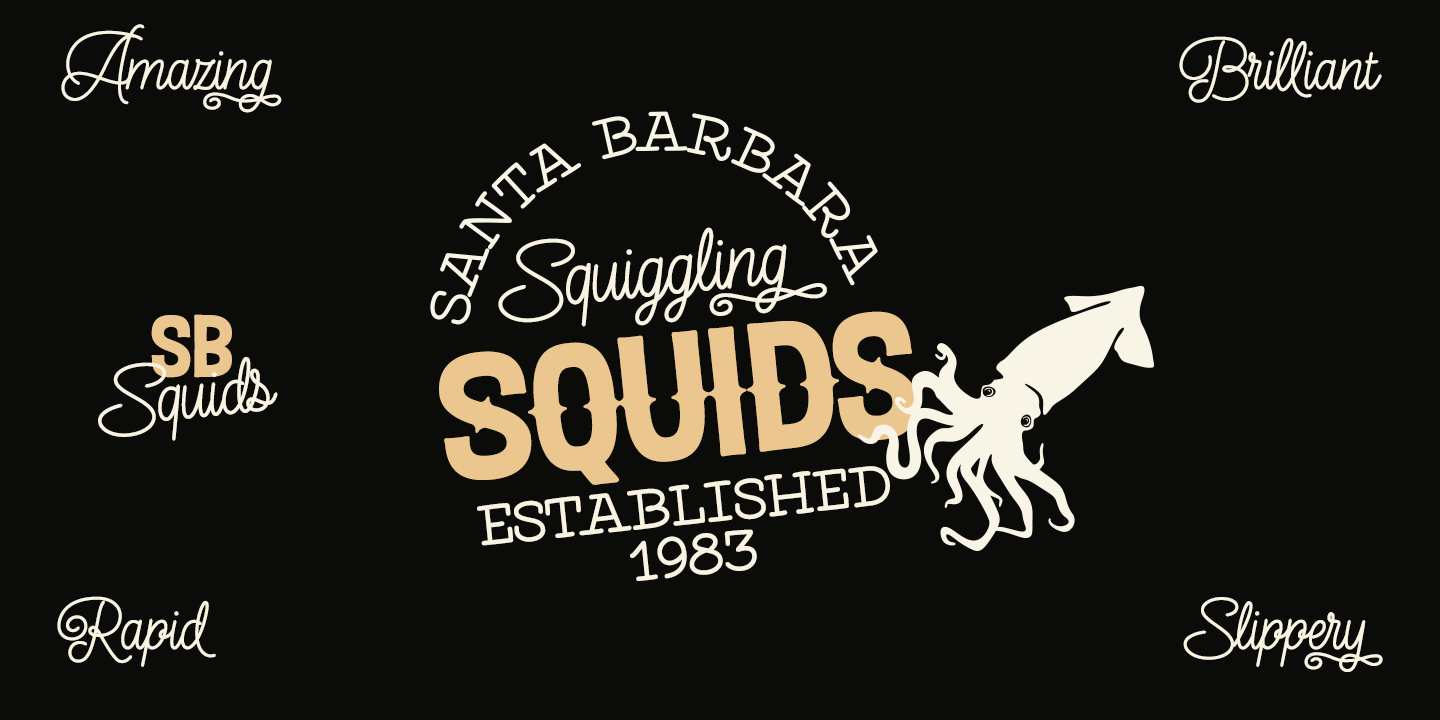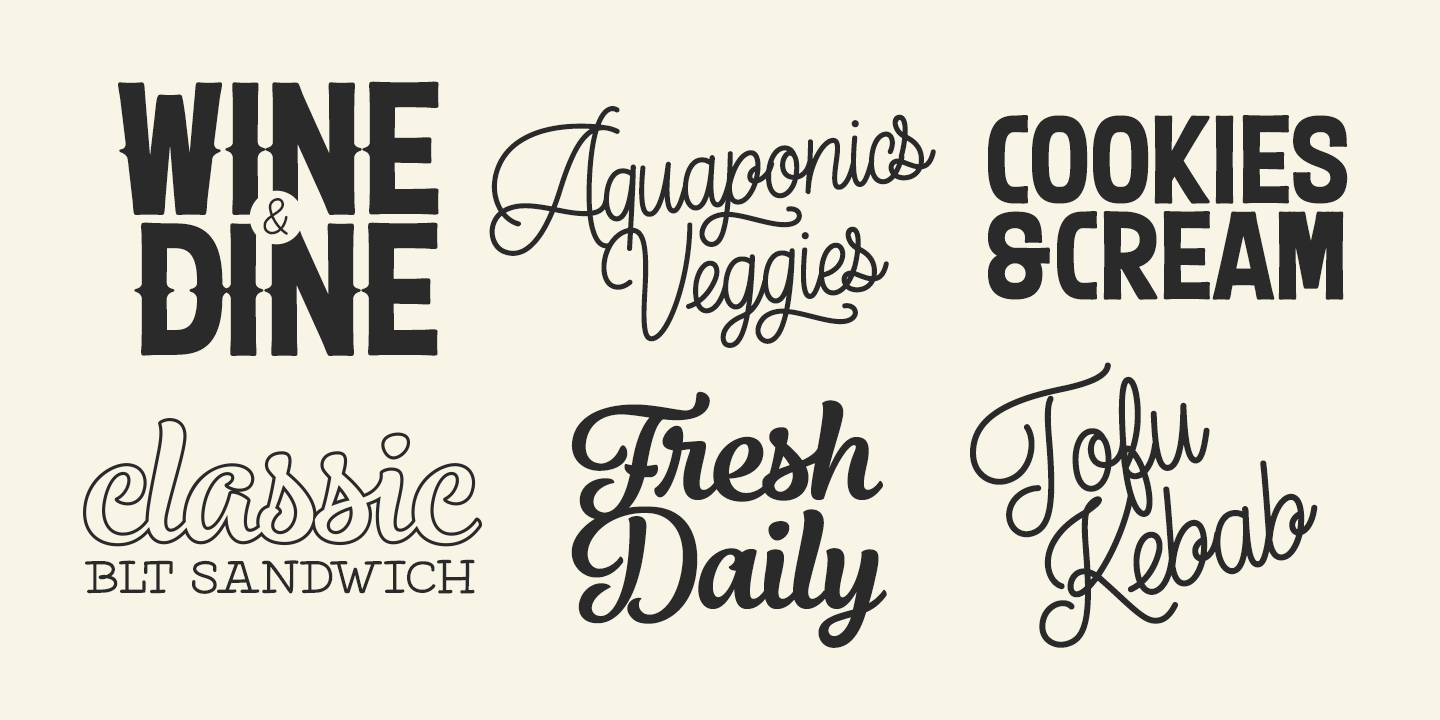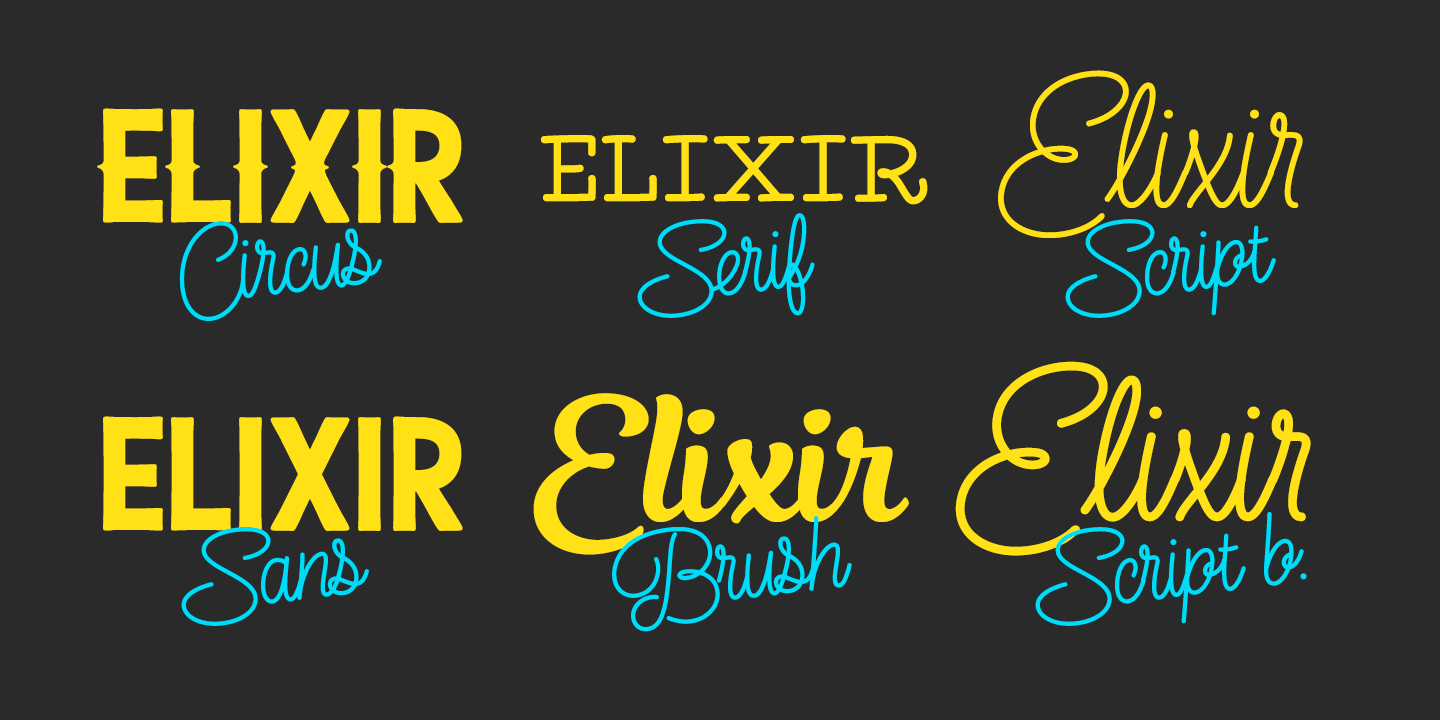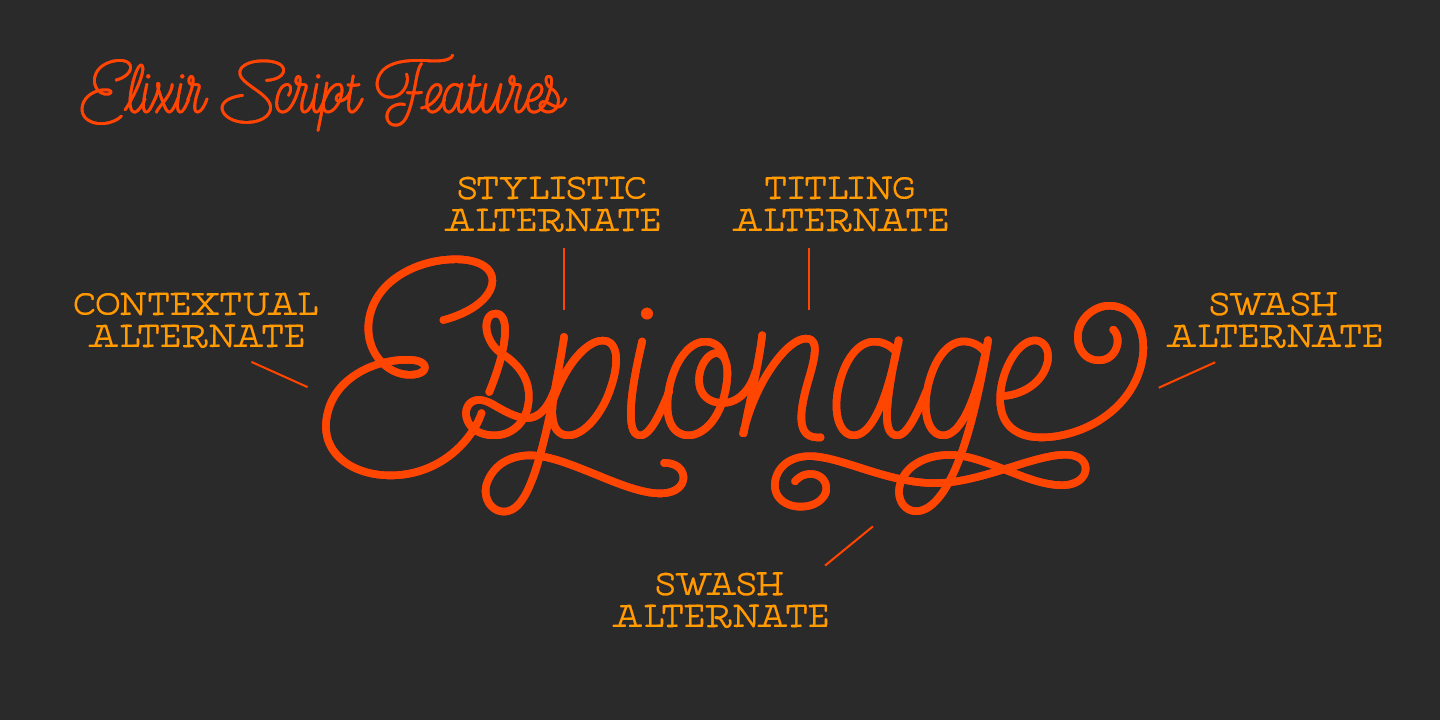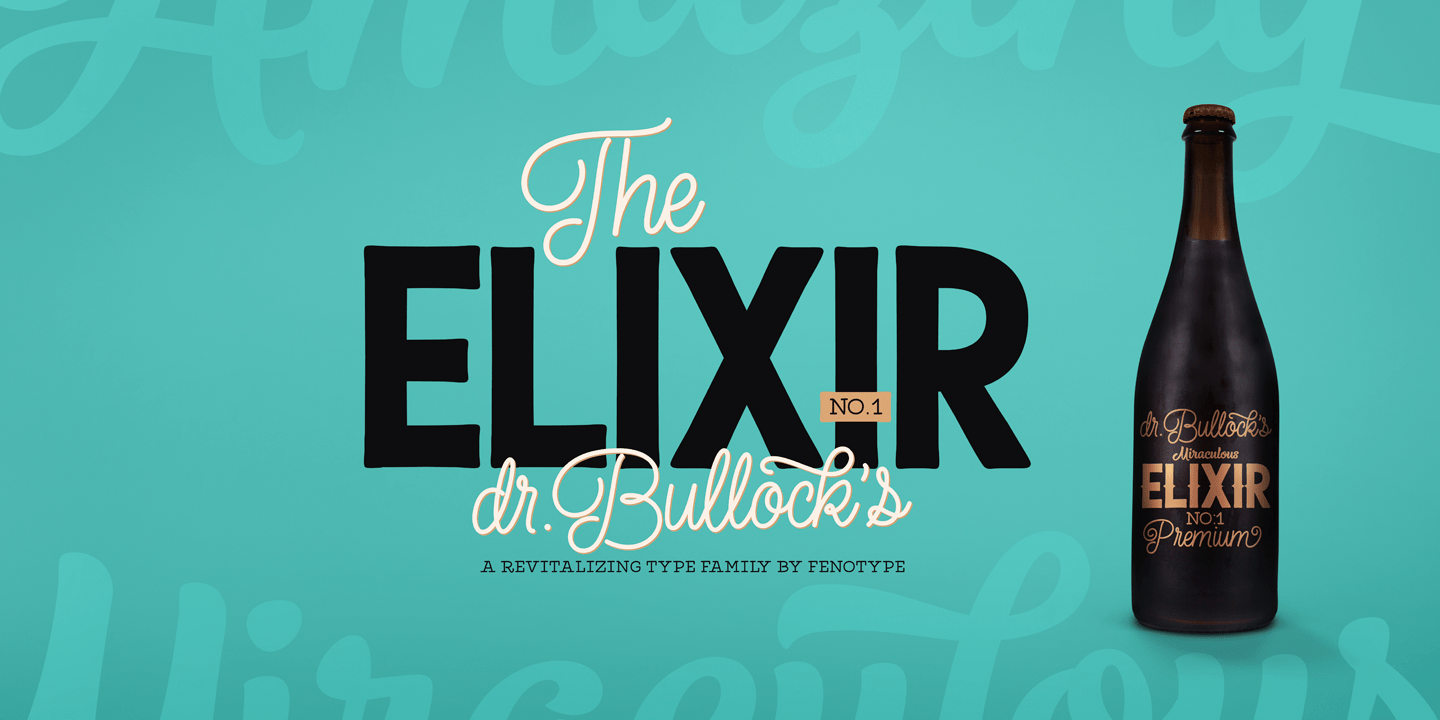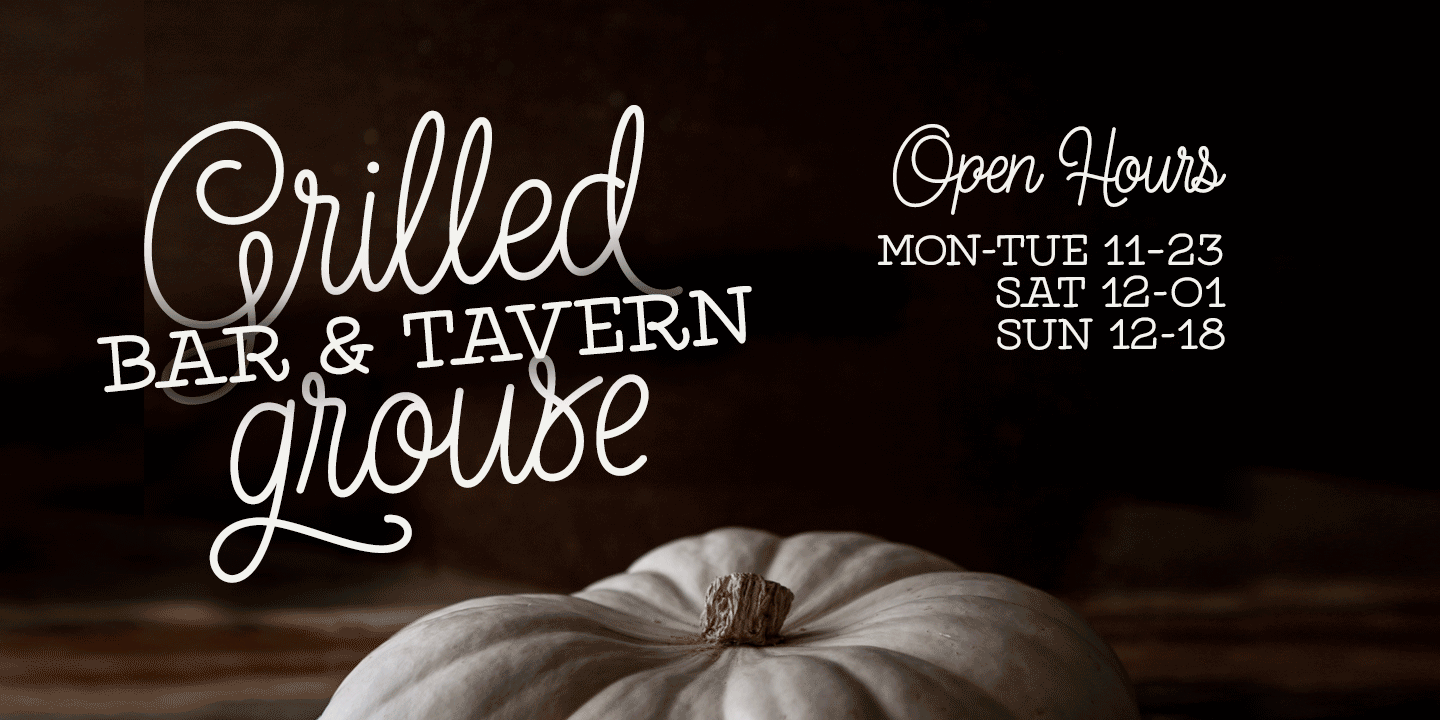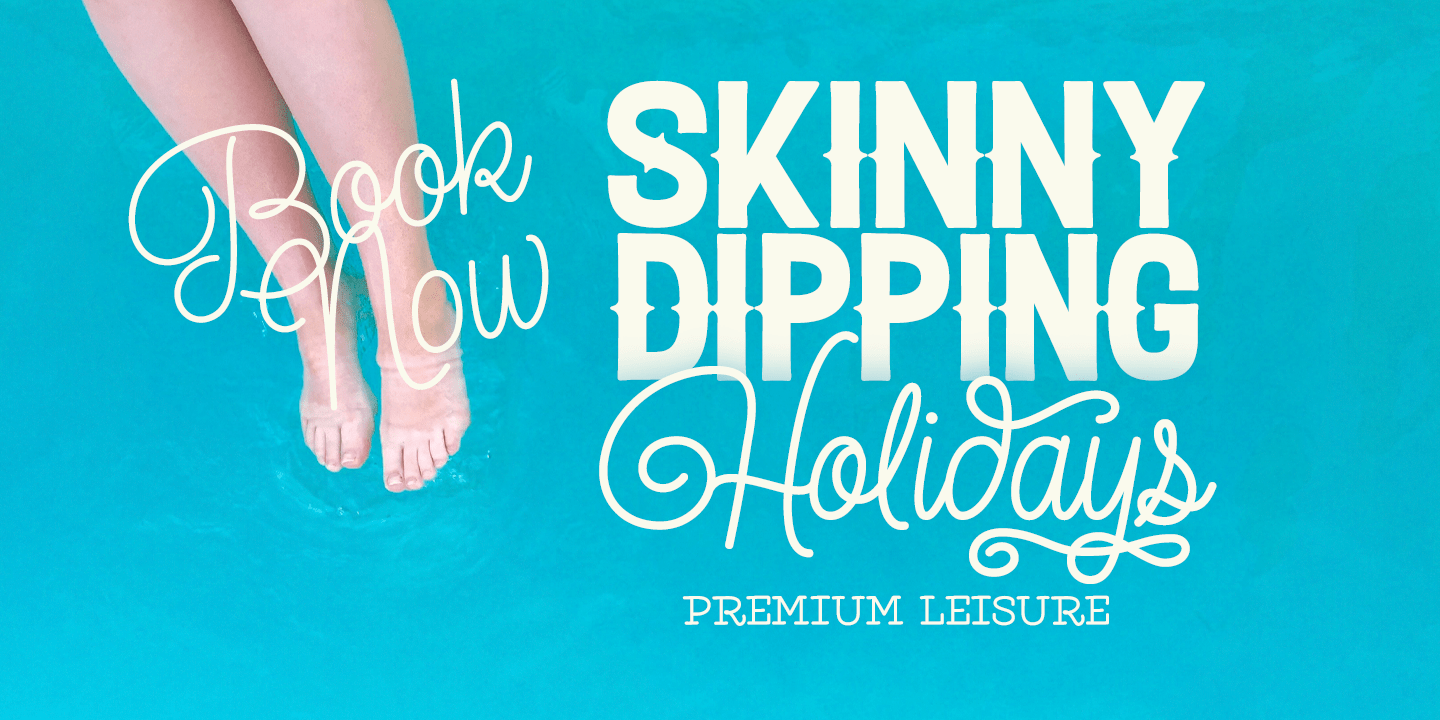
Elixir
Elixir is a strong display pack of five styles and total eleven fonts. Elixir fonts are designed to act together but they also work just fine by themselves.
Elixir Script is a monoline Script with plenty of OpenType features: Contextual Alternates helps to keep letter connections smooth whereas Swash, Stylistic or Titling Alternates can be used to add flavour to your words!
Elixir Brush is a smooth brush script with Contextual Alternates, Swash and Titling Alternates. Elixir Sans is a sturdy all caps font with wider uppercase letters. Elixir Circus is a circus style version of Elixir Sans. Elixir Serif is a rounded slab serif.
Elixir Print is a rugged version of Elixir with rough outlines and worn-out print texture.